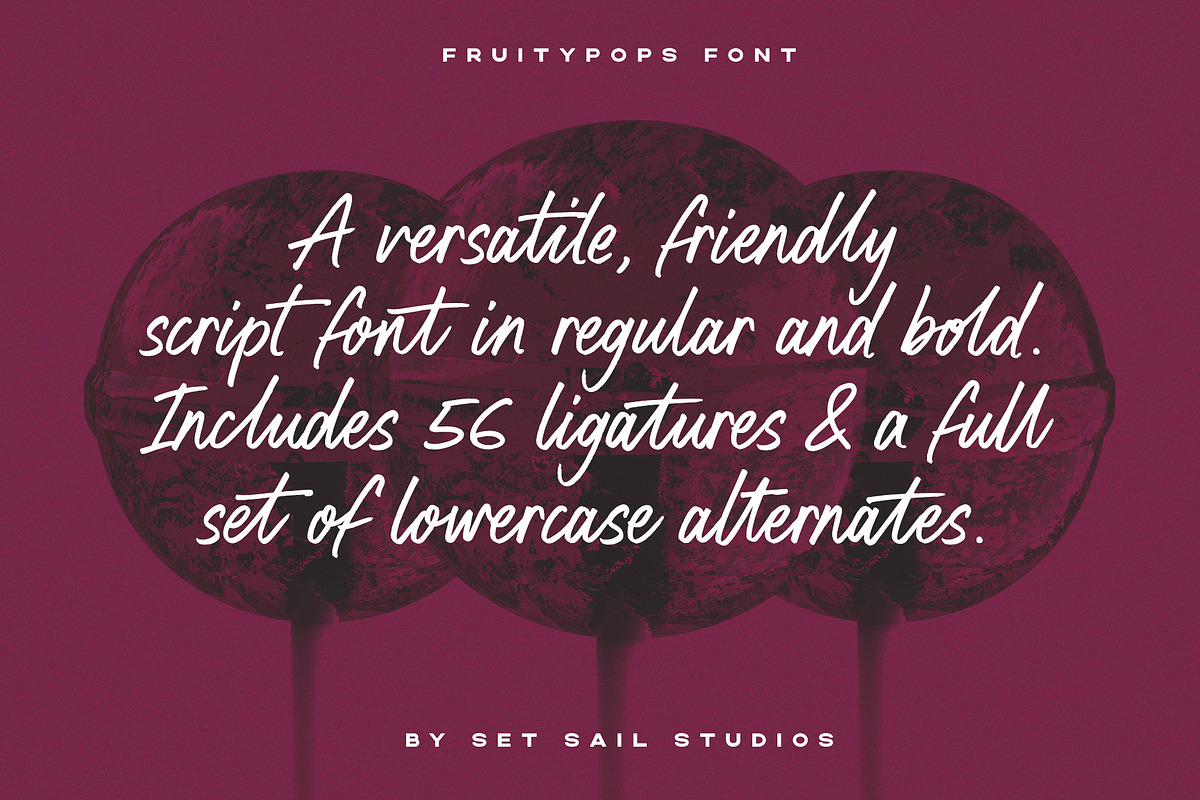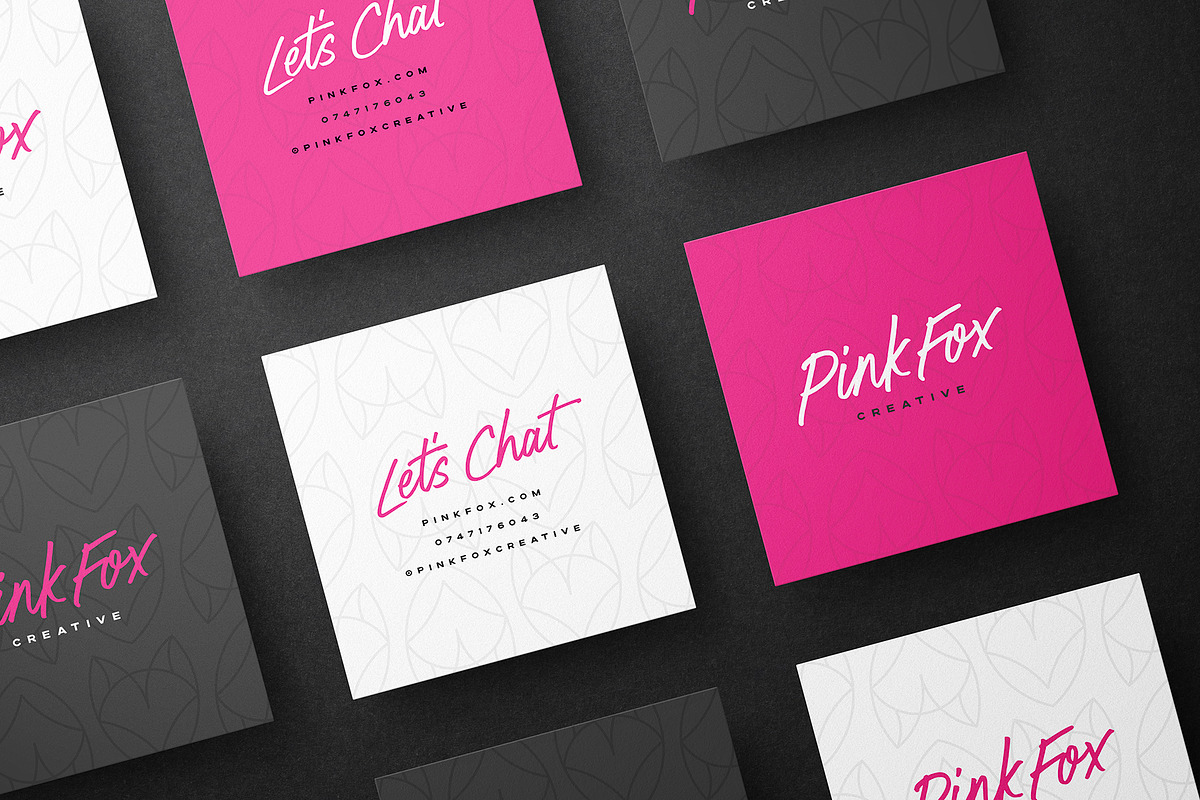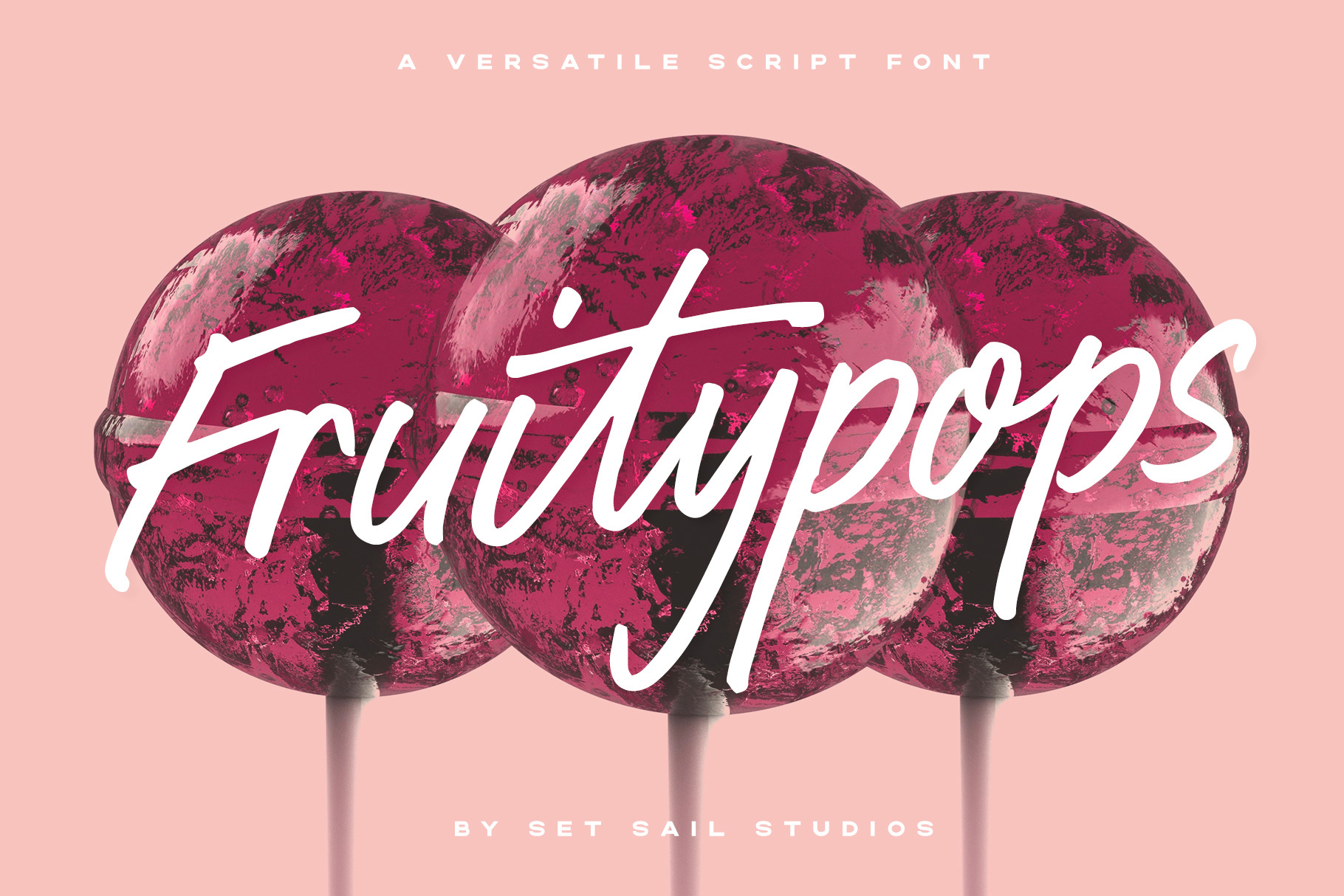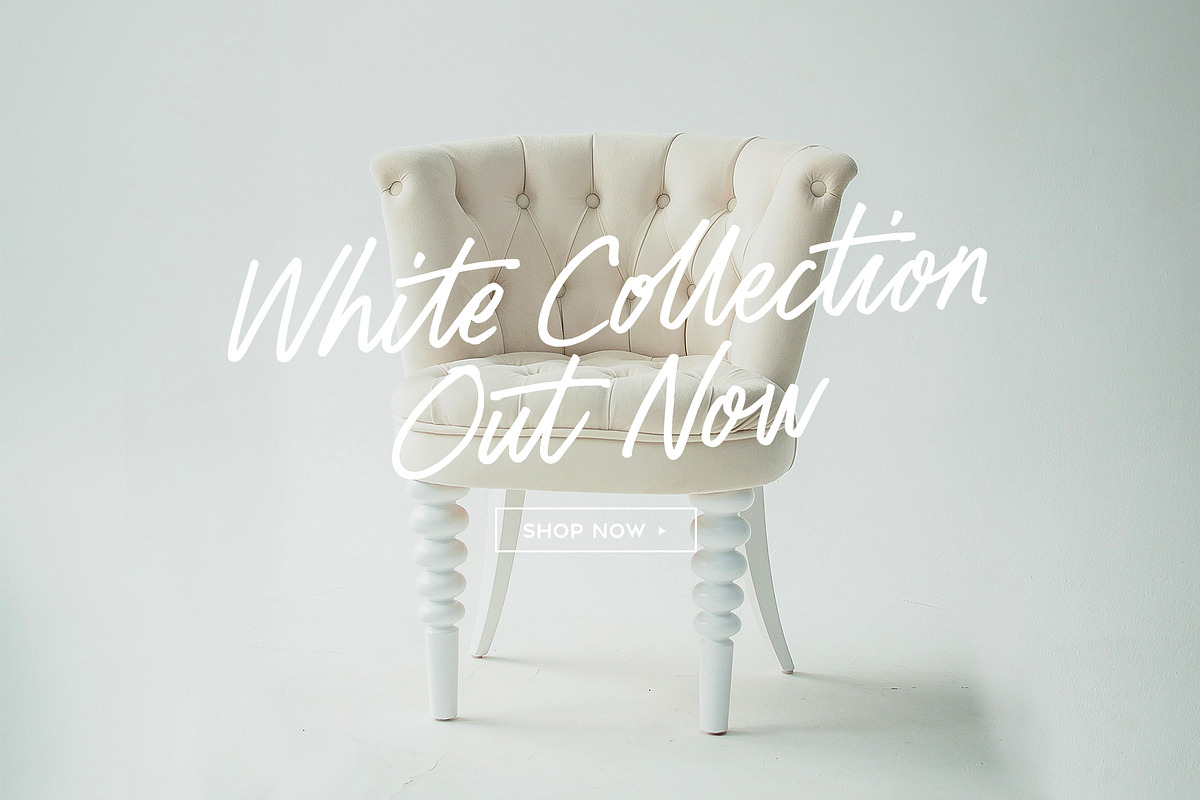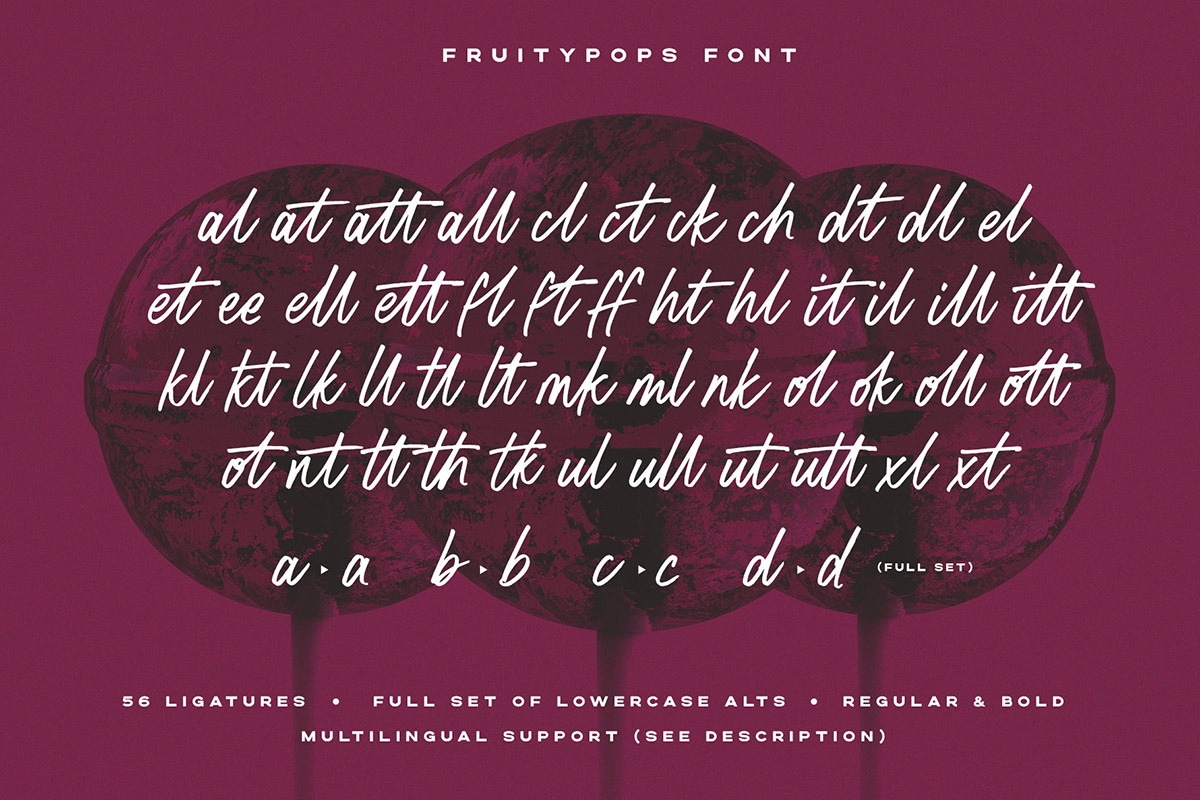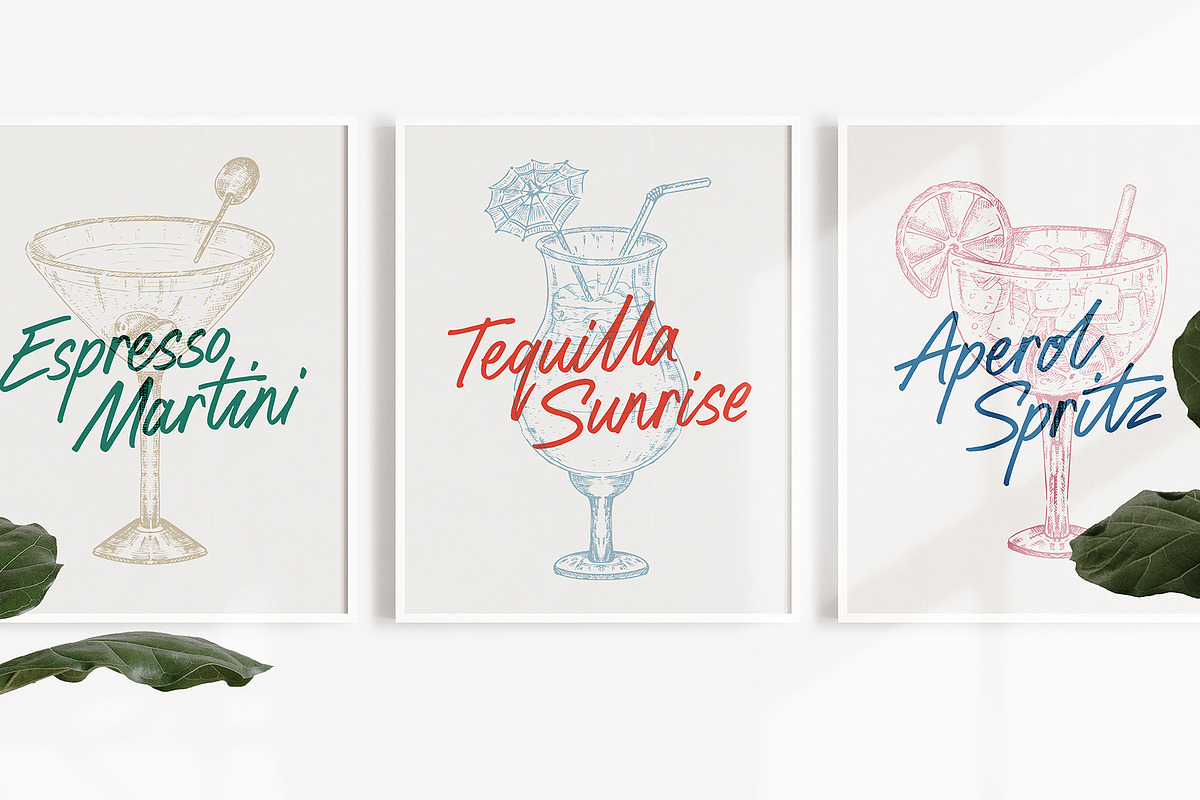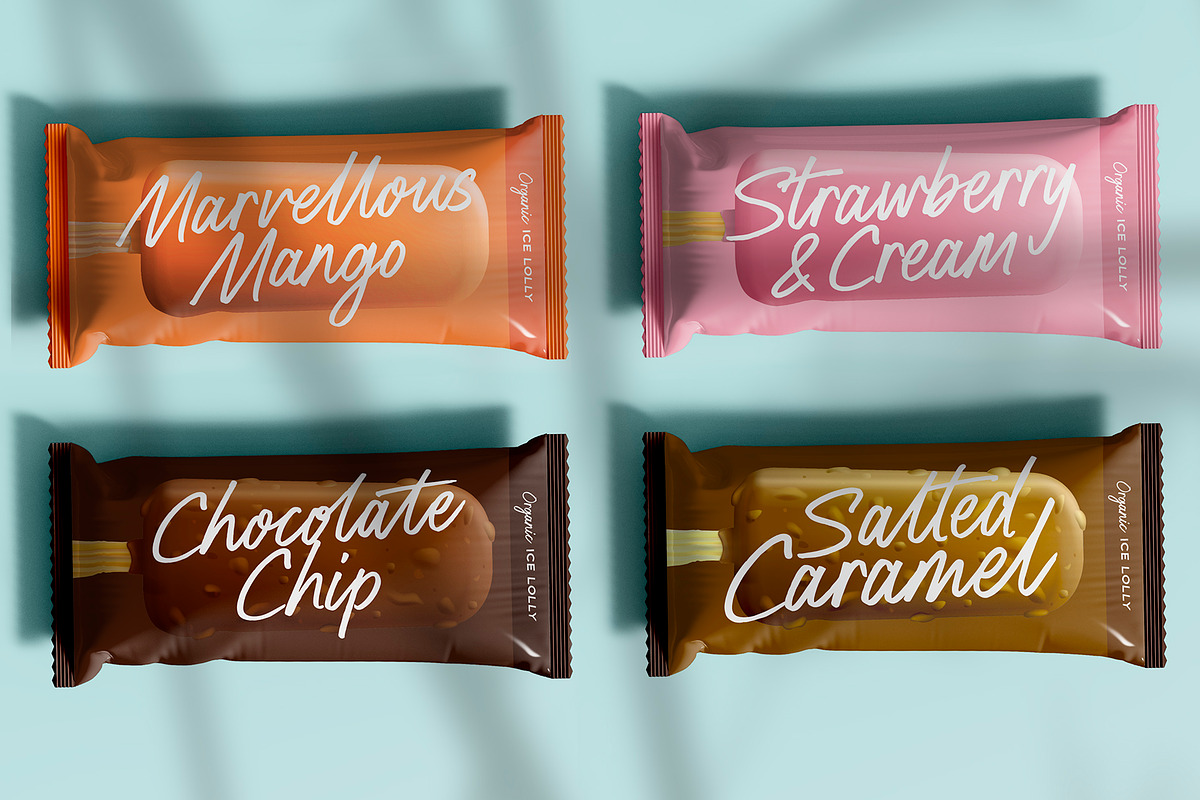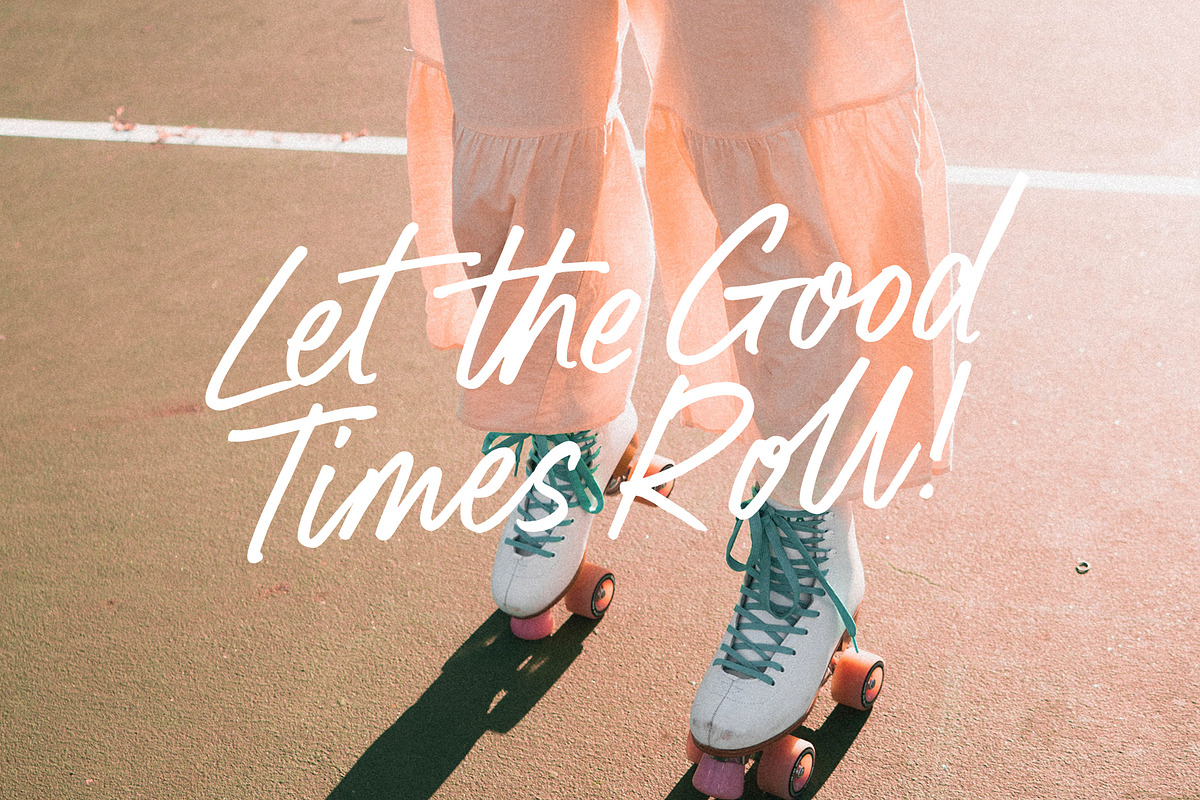
Fruitypops Font
Introducing Fruitypops! A friendly, versatile script font ready for any project. Hand drawn with a real marker pen on paper, Fruitypops is bold and standout yet maintains large counter spaces with its large loops and carefully crafted letterforms. With 56 ligatures, a full set of unconnected lowercase alternates, and a bold version included, it's designed to be a go-to script font for any design brief in need of a personal touch.
1. Fruitypops Regular • A handwritten script font containing upper & lowercase characters, numerals and a large range of punctuation.
2. Fruitypops Bold • A bold version of Fruitypops with thicker letterforms, great for use at smaller sizes.
Lowercase Alternates • A full set of a-z lowercase alternates are included with unconnected strokes. These can be accessed by turning on 'Stylistic Alternates', via a Glyphs panel, or pasted via Font Book/Windows Character Map.
56 Ligatures • 56 ligatures are included for lowercase letters (see image). These are uniquely designed double and triple letter combinations designed to create realistic handwriting and fix tricky character pairings. These can be accessed by turning on 'Standard Ligatures', via a Glyphs panel, or pasted via Font Book/Windows Character Map.
Language Support • English, French, Italian, Spanish, Portuguese, German, Swedish, Norwegian, Danish, Dutch, Finnish, Indonesian, Malay, Hungarian, Polish, Croatian, Turkish, Romanian, Czech, Latvian, Lithuanian, Slovak, Slovenian.